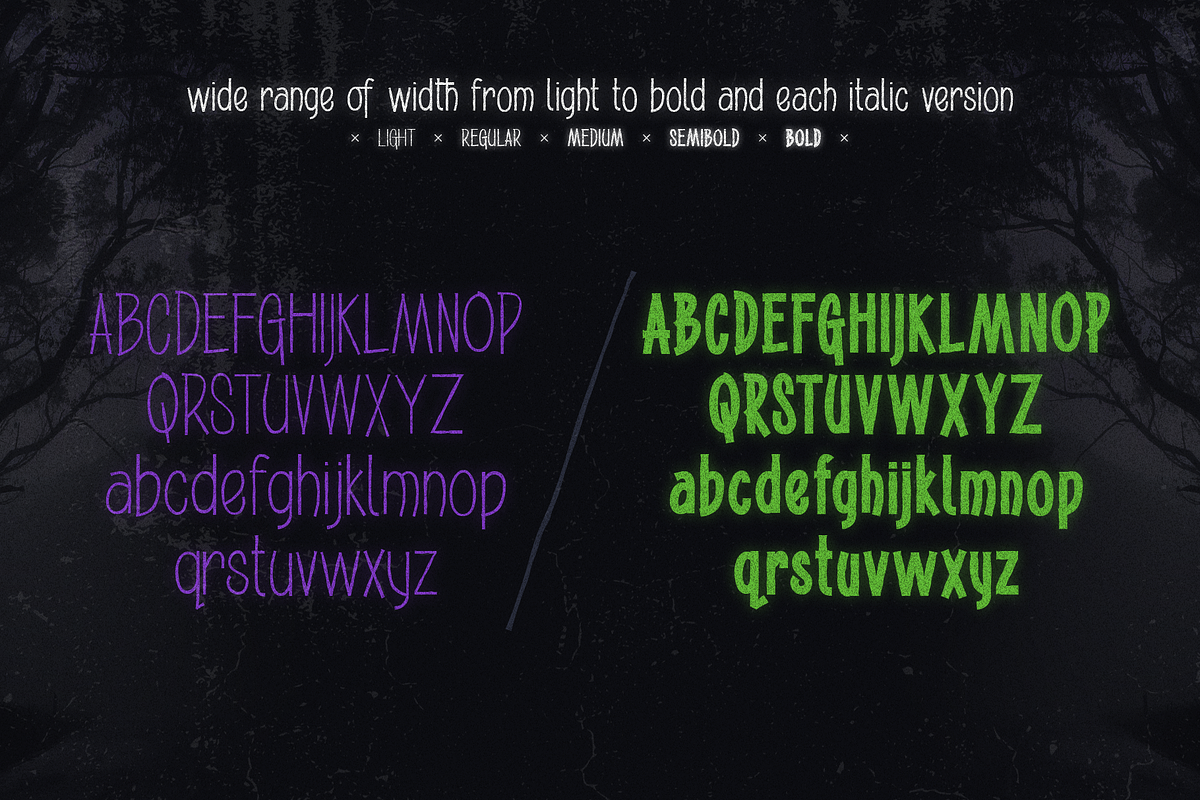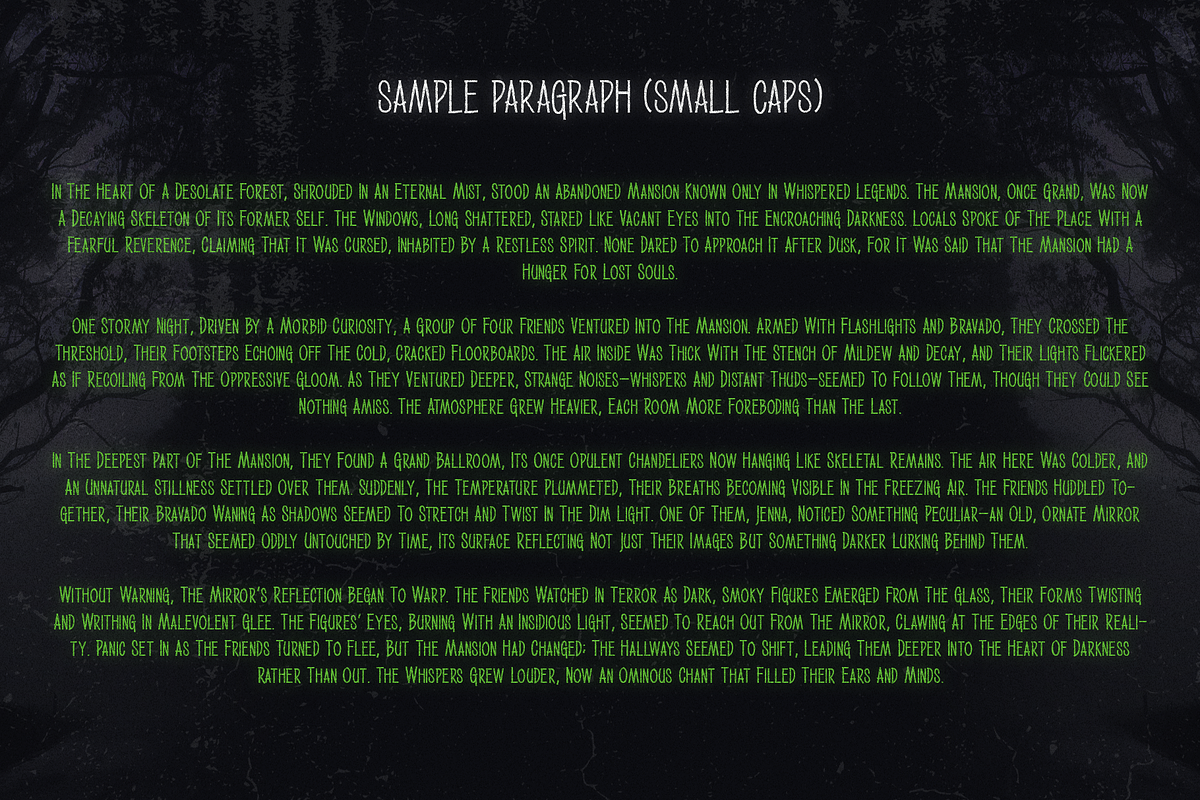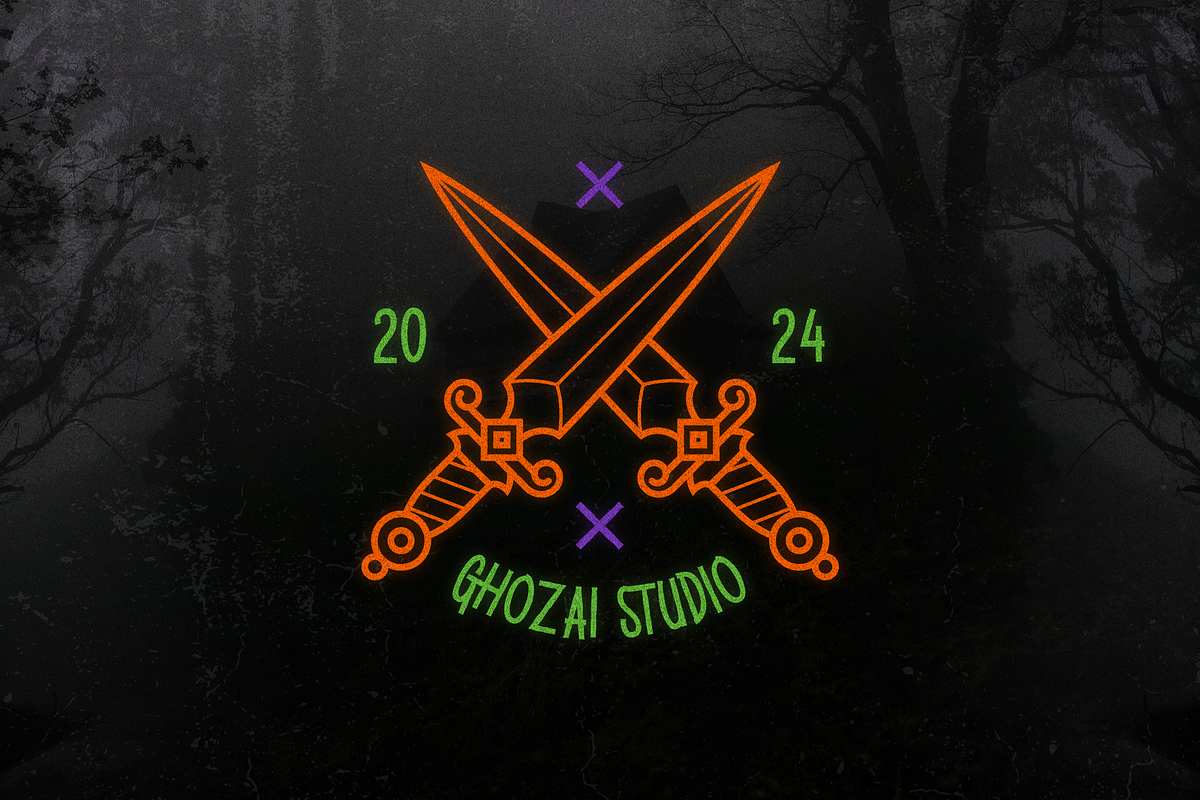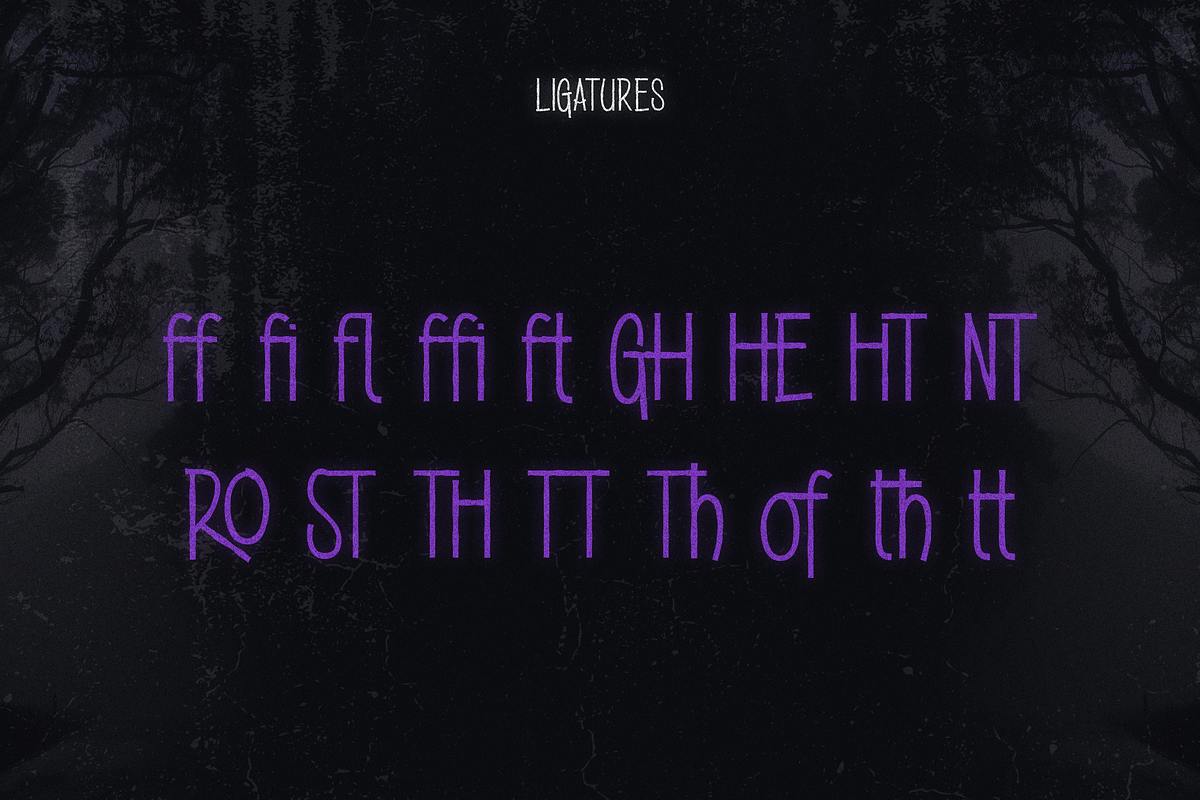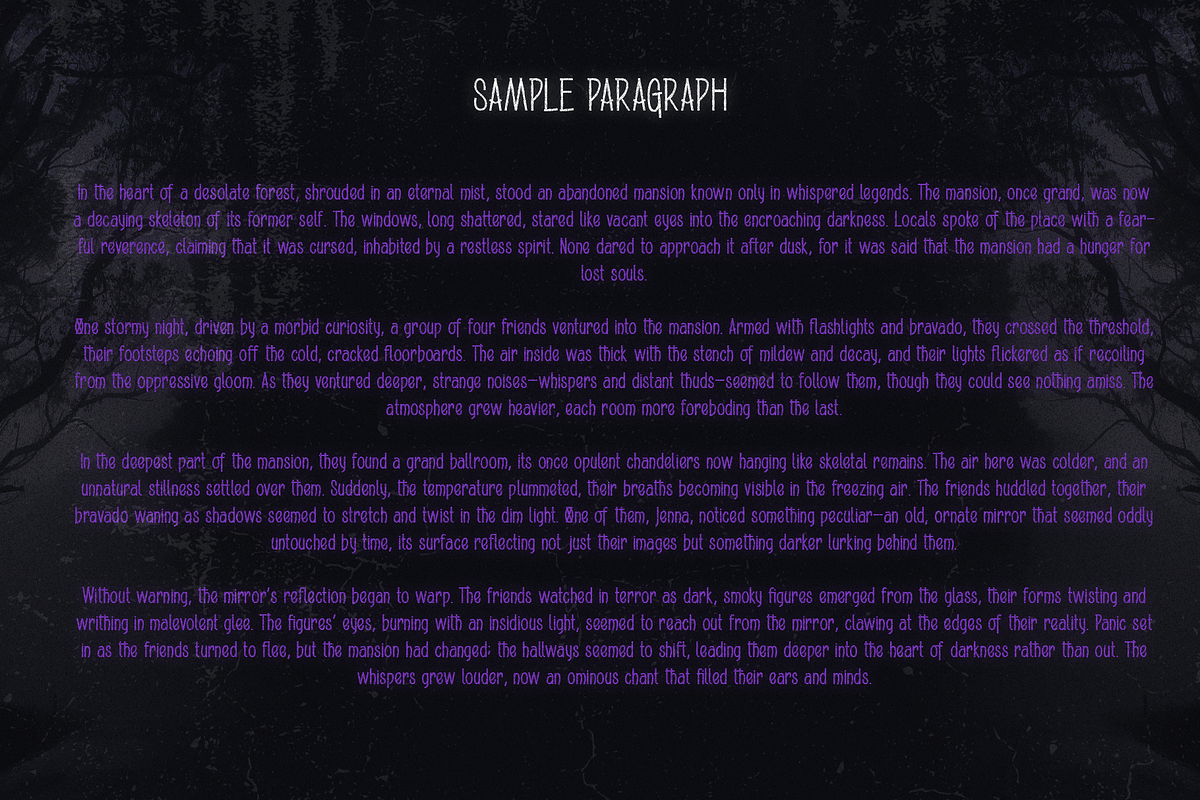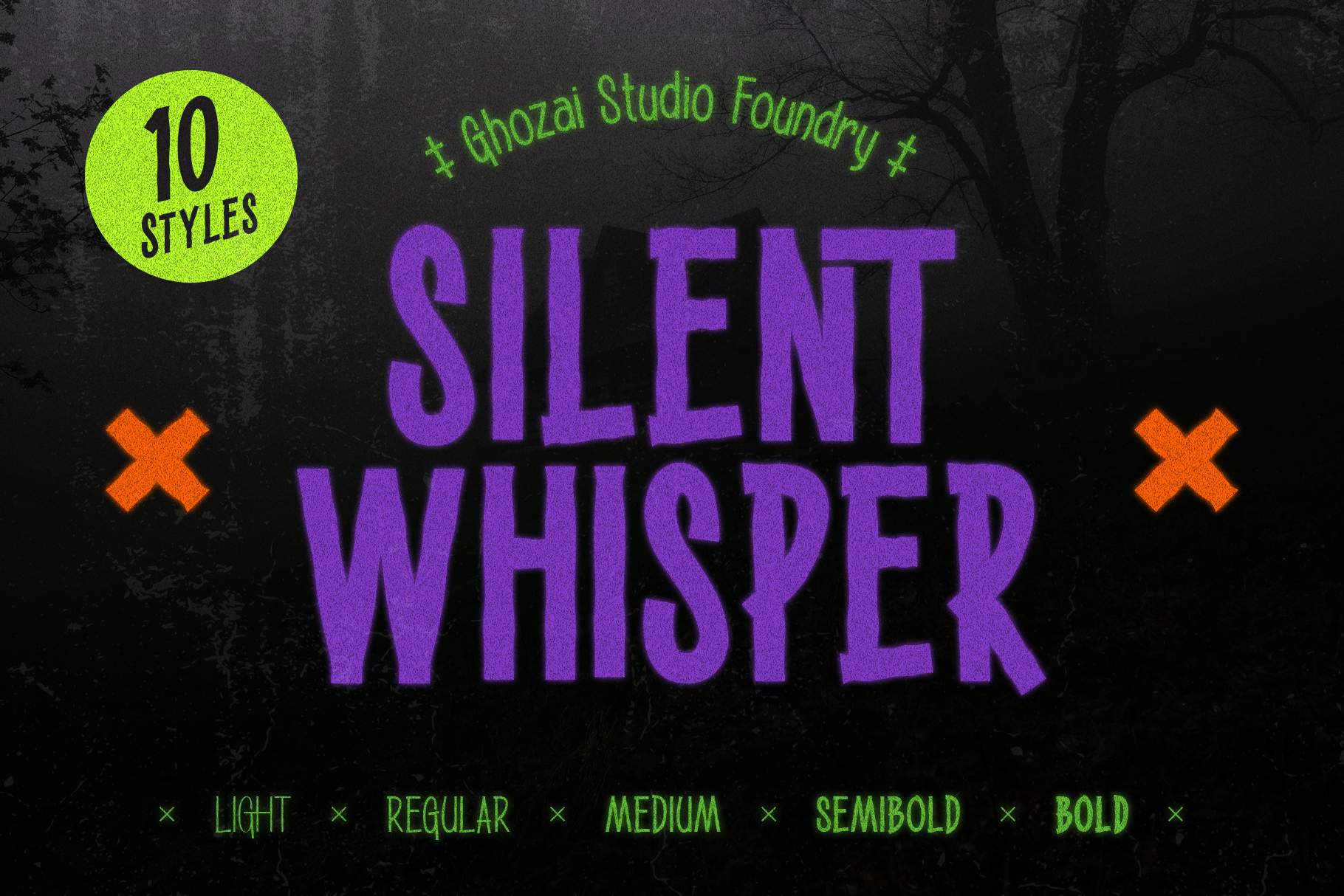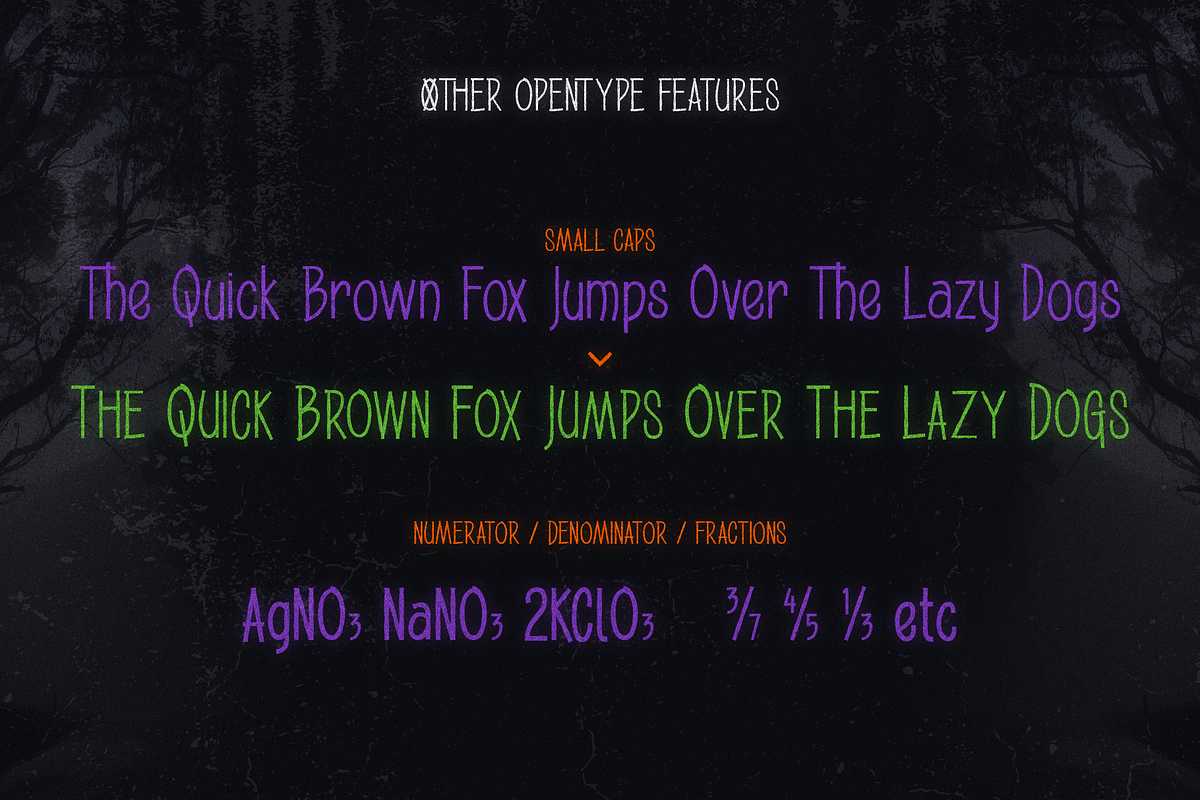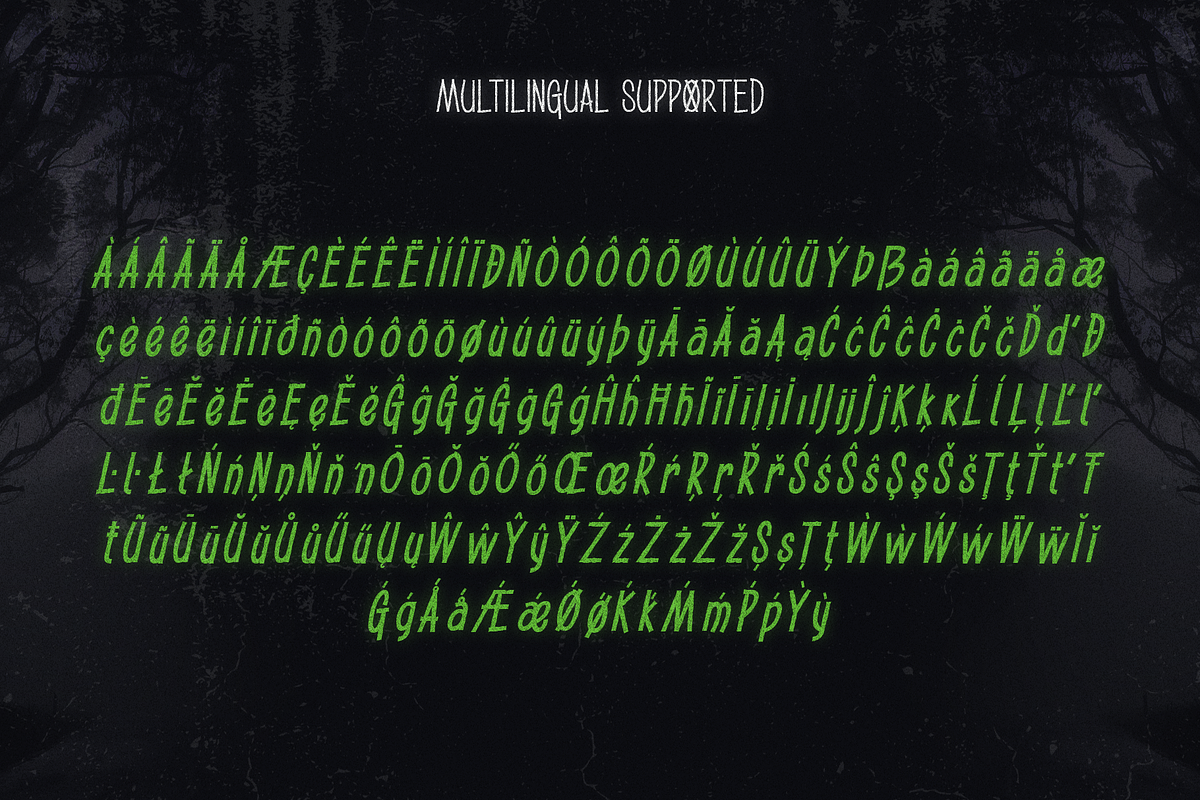
Silent Whisper - variable font
Silent Whisper is a simple horror font display. Silent Whisper comes in a wide range of styles, 10 styles (5 plains and 5 italics), from thin to bold, and the italic version. Silent Whisper is also supported with many Opentype features and is multilingual to support any needs.